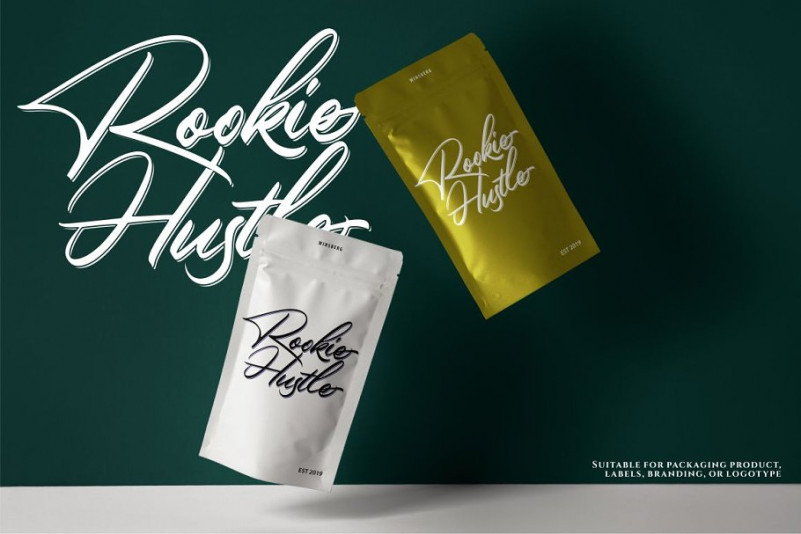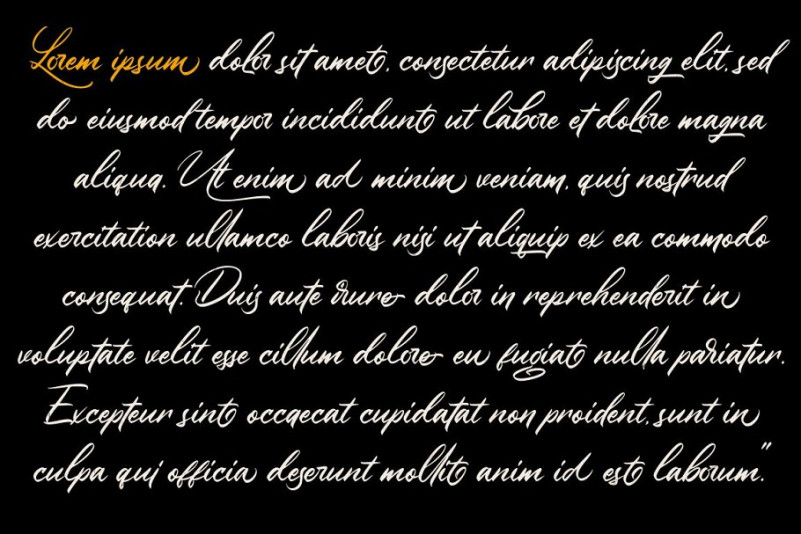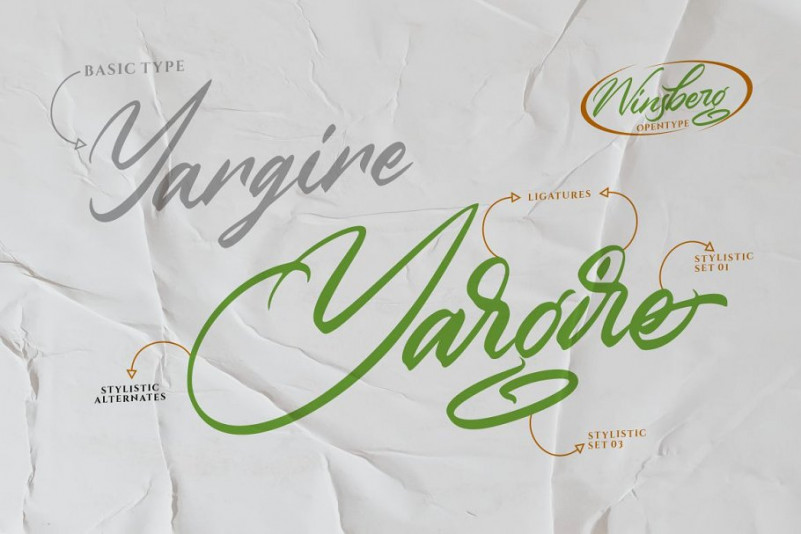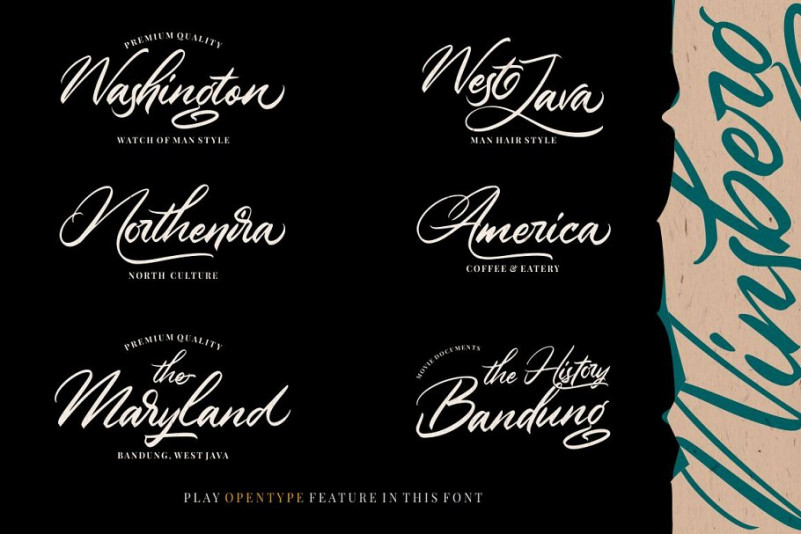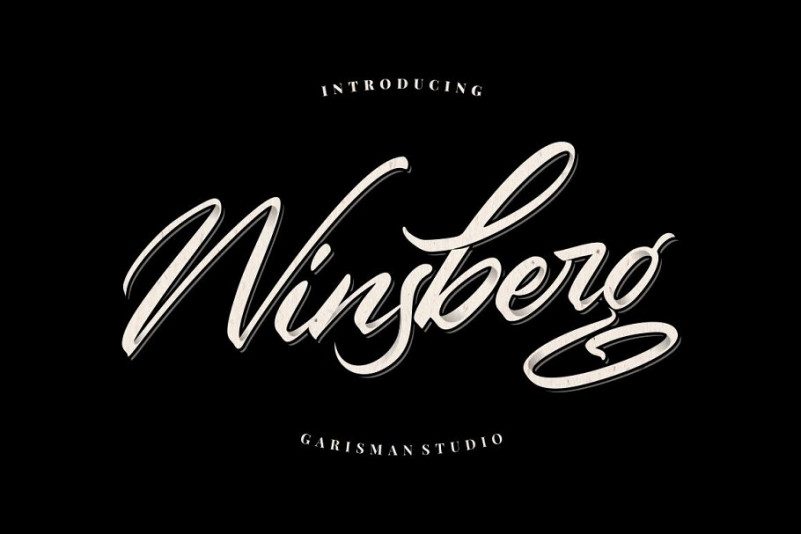
Winsberg Script Font
Introducing Winsberg Font! A modern script font. This Font can be used for any variety of purposes. It is designed and shared by Garisman Std. Winsberg comes from hand scratches to get natural and natural writing. With the main style of the hand-lettering script, it will be very interesting if it is added with a variety of Alternates (Capital letters) and also Stylistic Sets that are very suitable. Winsberg is very suitable for use in various media such as; packaging, logos, labels, posters, shirt designs, wisdom quotes, bulletins, typography, and many other media.